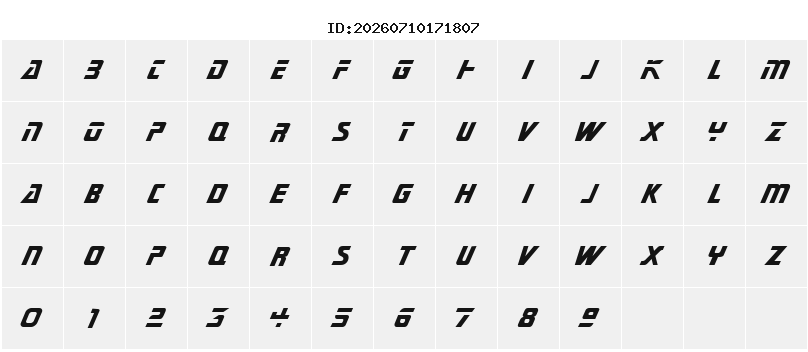
Generations Preview
• Font Name: Generations
• Font Style: Plain
• Font ID: Altsys Fontographer 3.3 Generations Plain
• Full Font Name: Generations Plain
• Version: Altsys Fontographer 3.3 5/1/92
• PostScript Name: Generations Plain
• Character Count: 89
About Generations.ttf
Generations.ttf is a modern, elegant sans-serif font designed for ultimate readability and visual harmony. Perfect for branding, headlines, web design, and print materials.